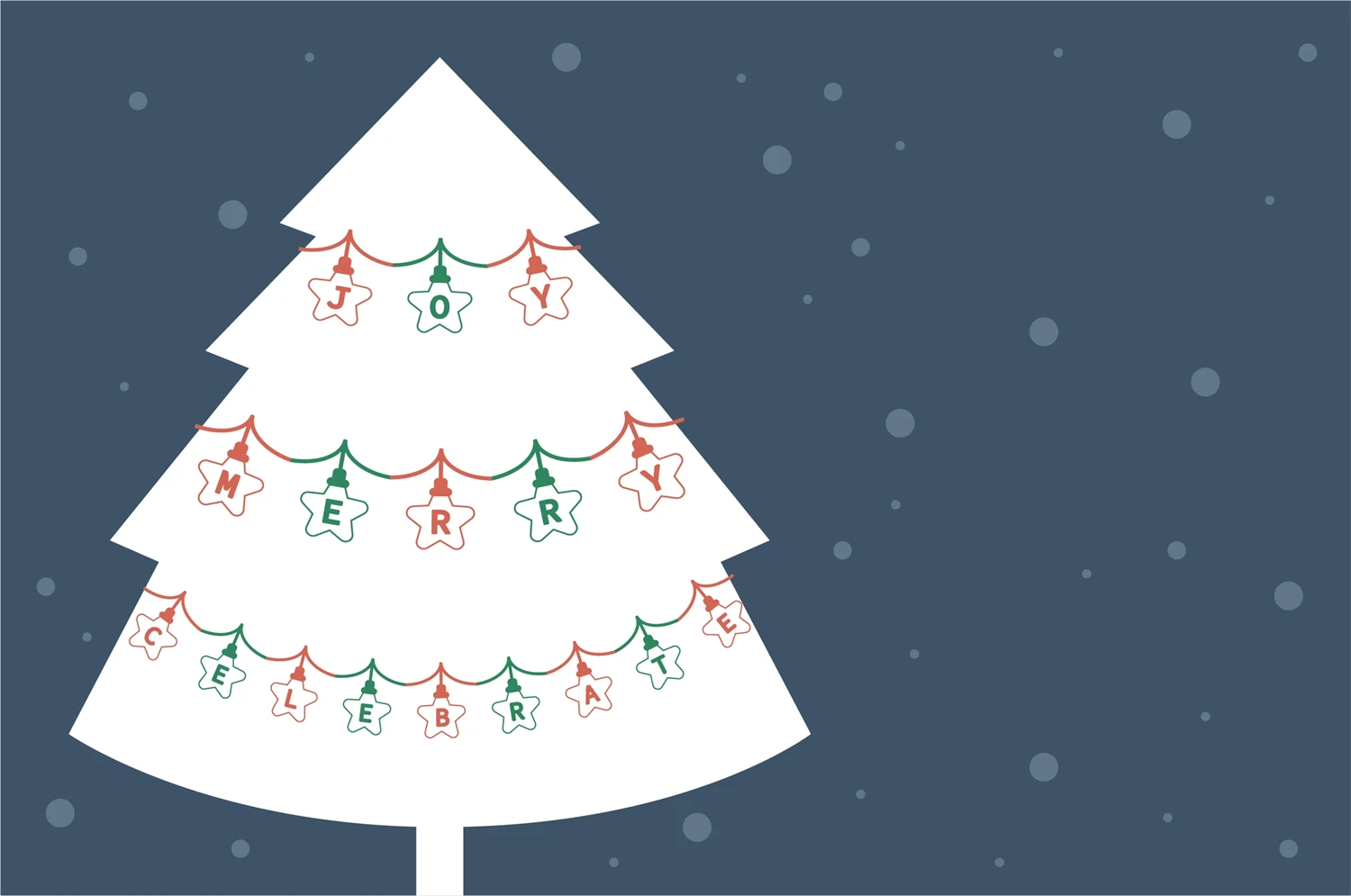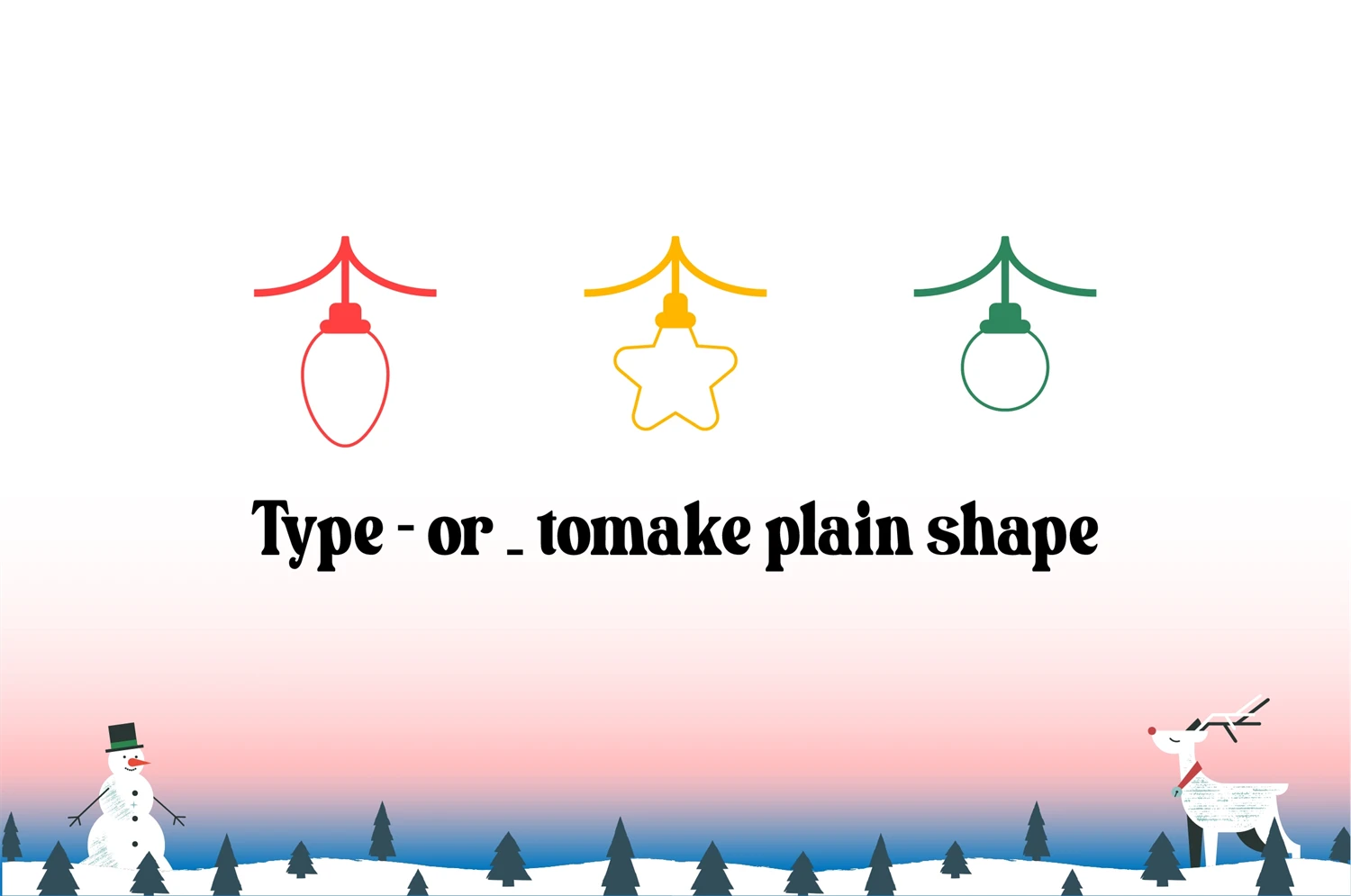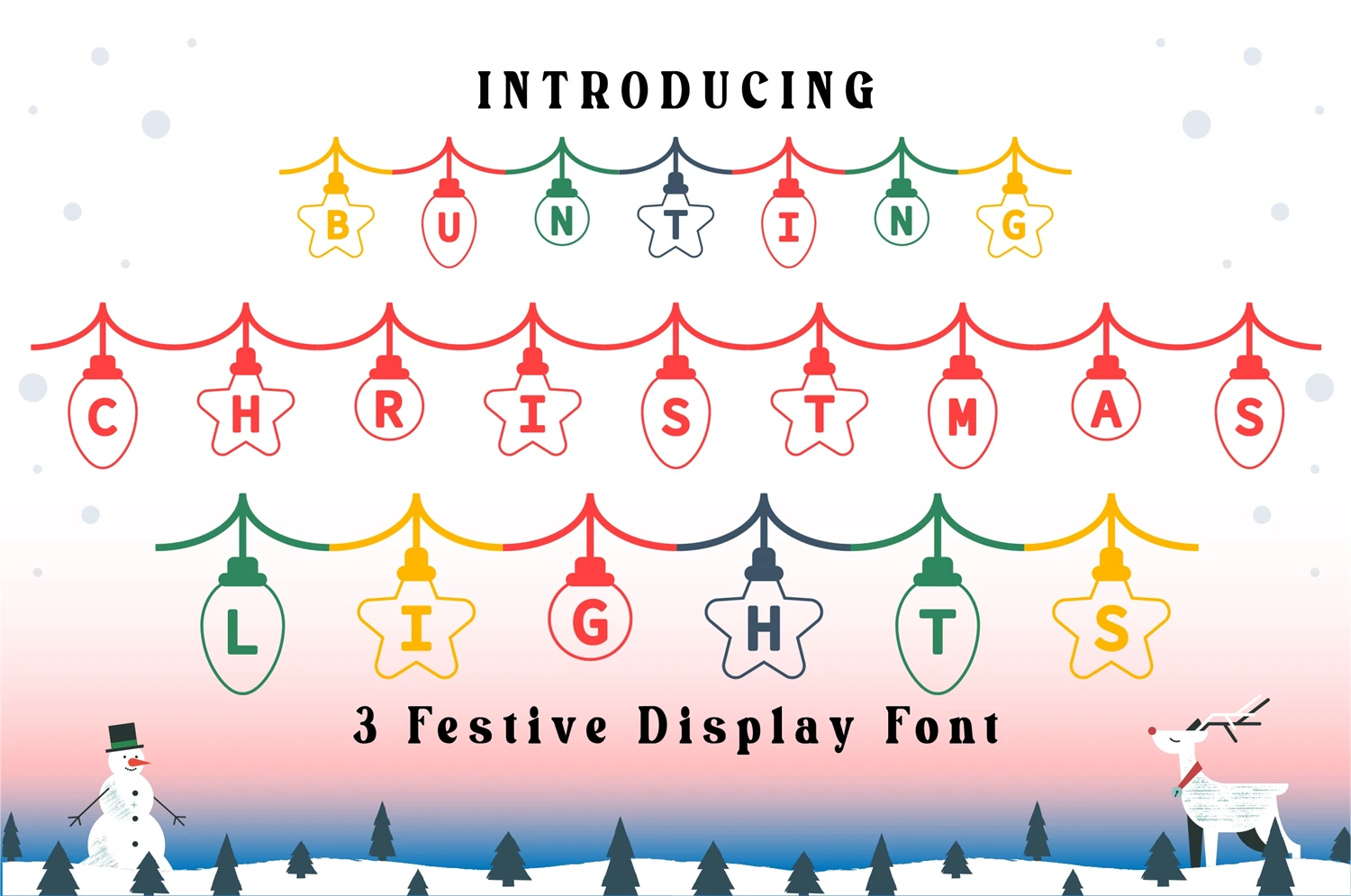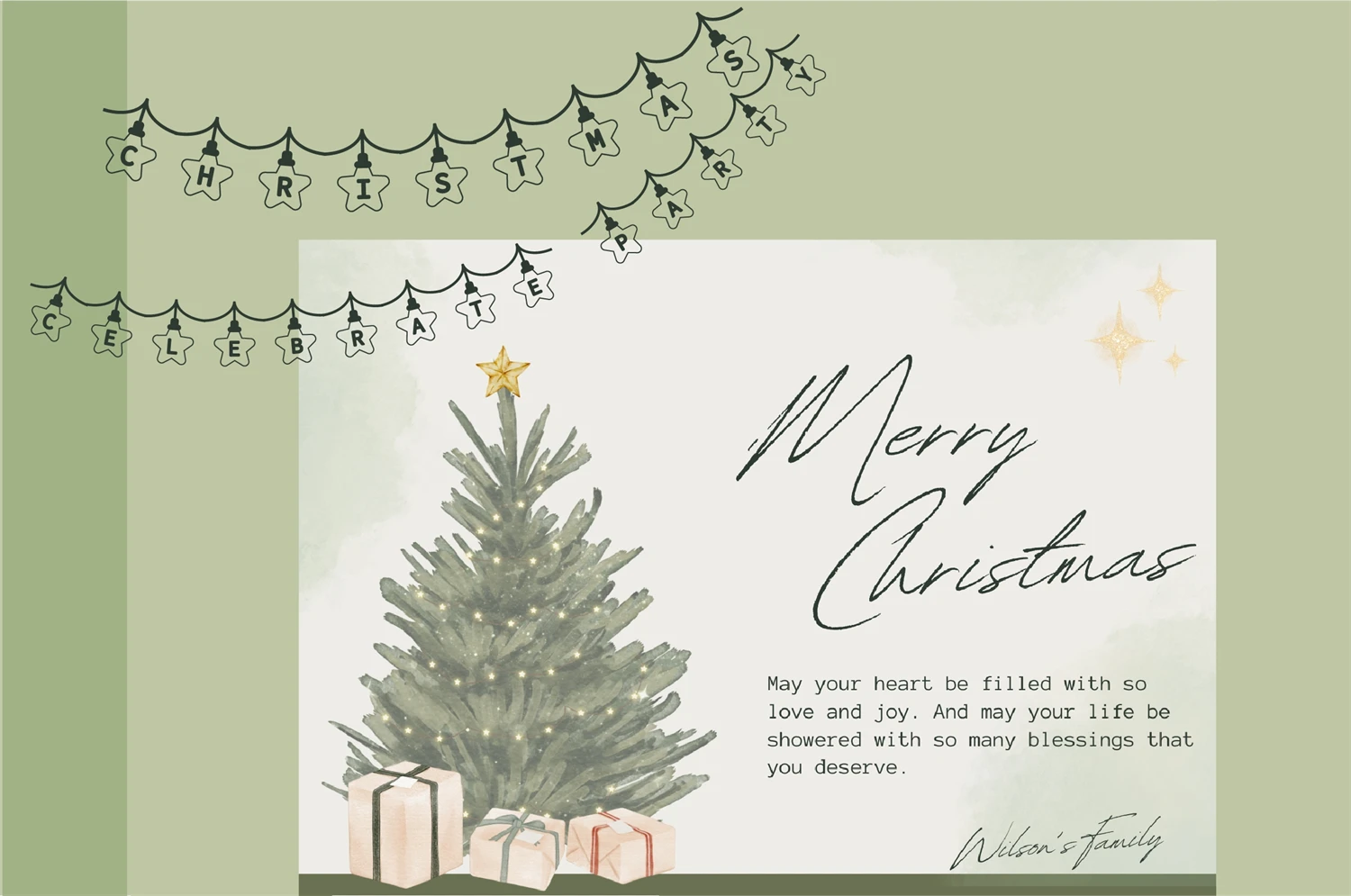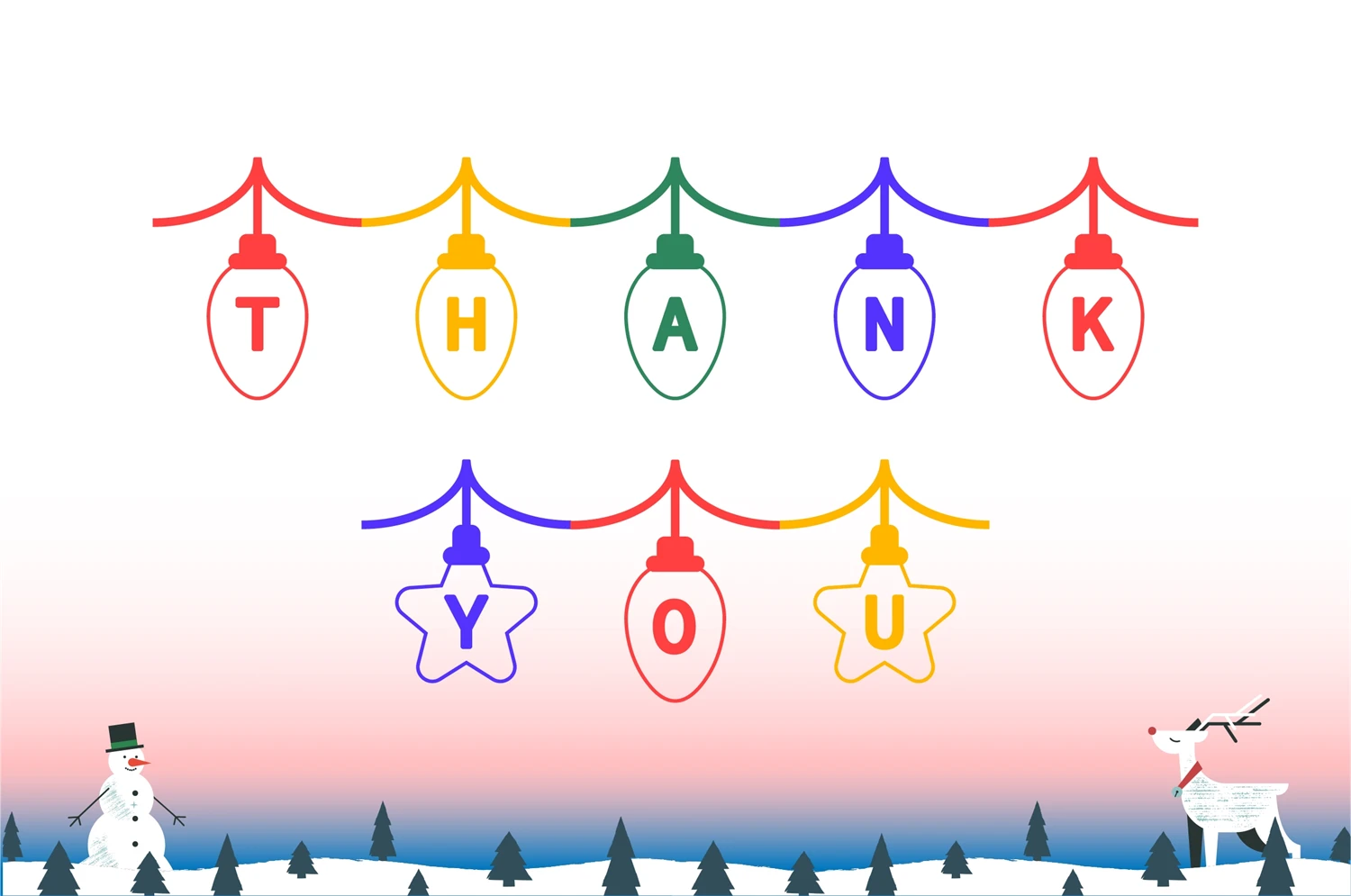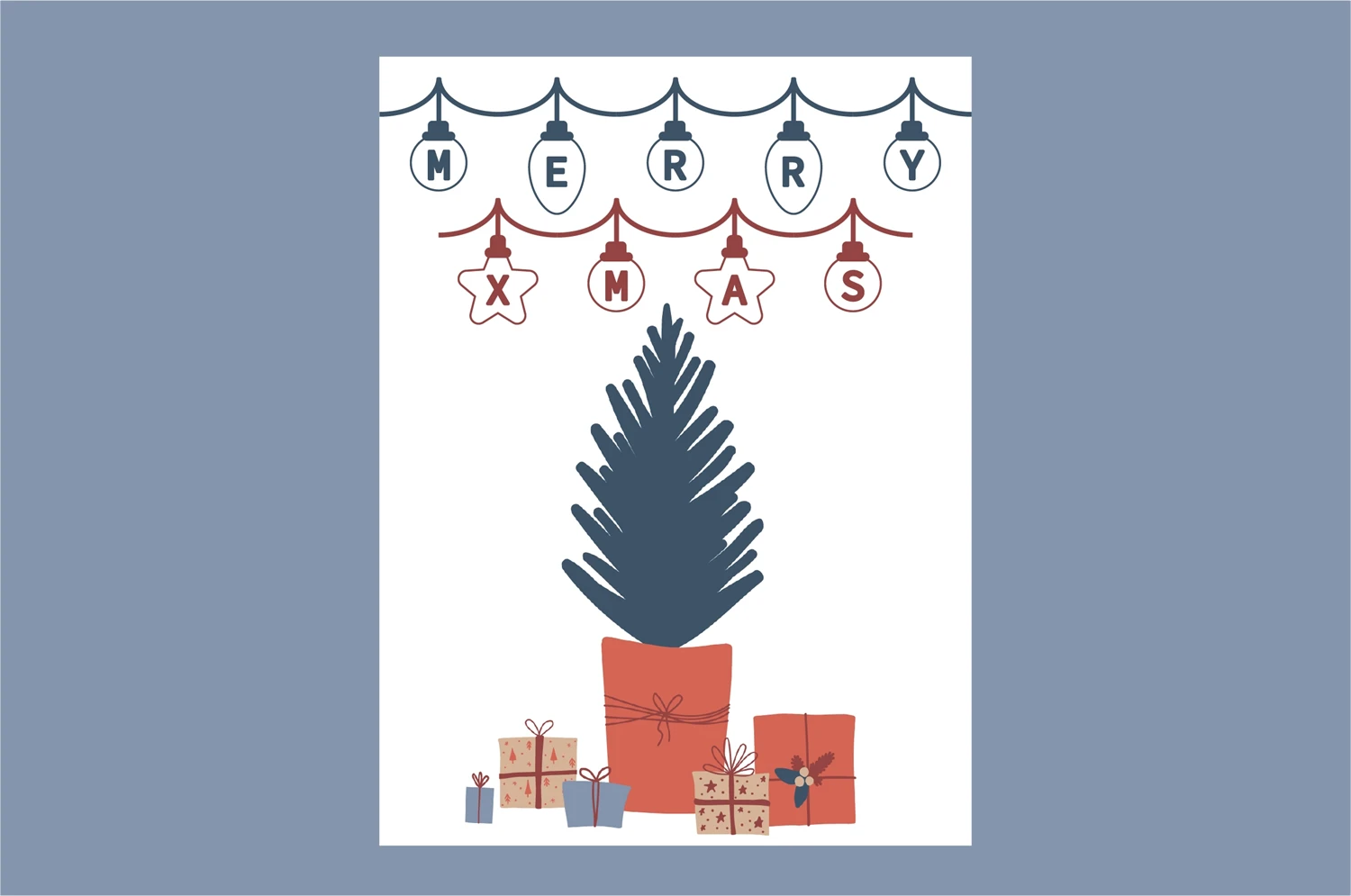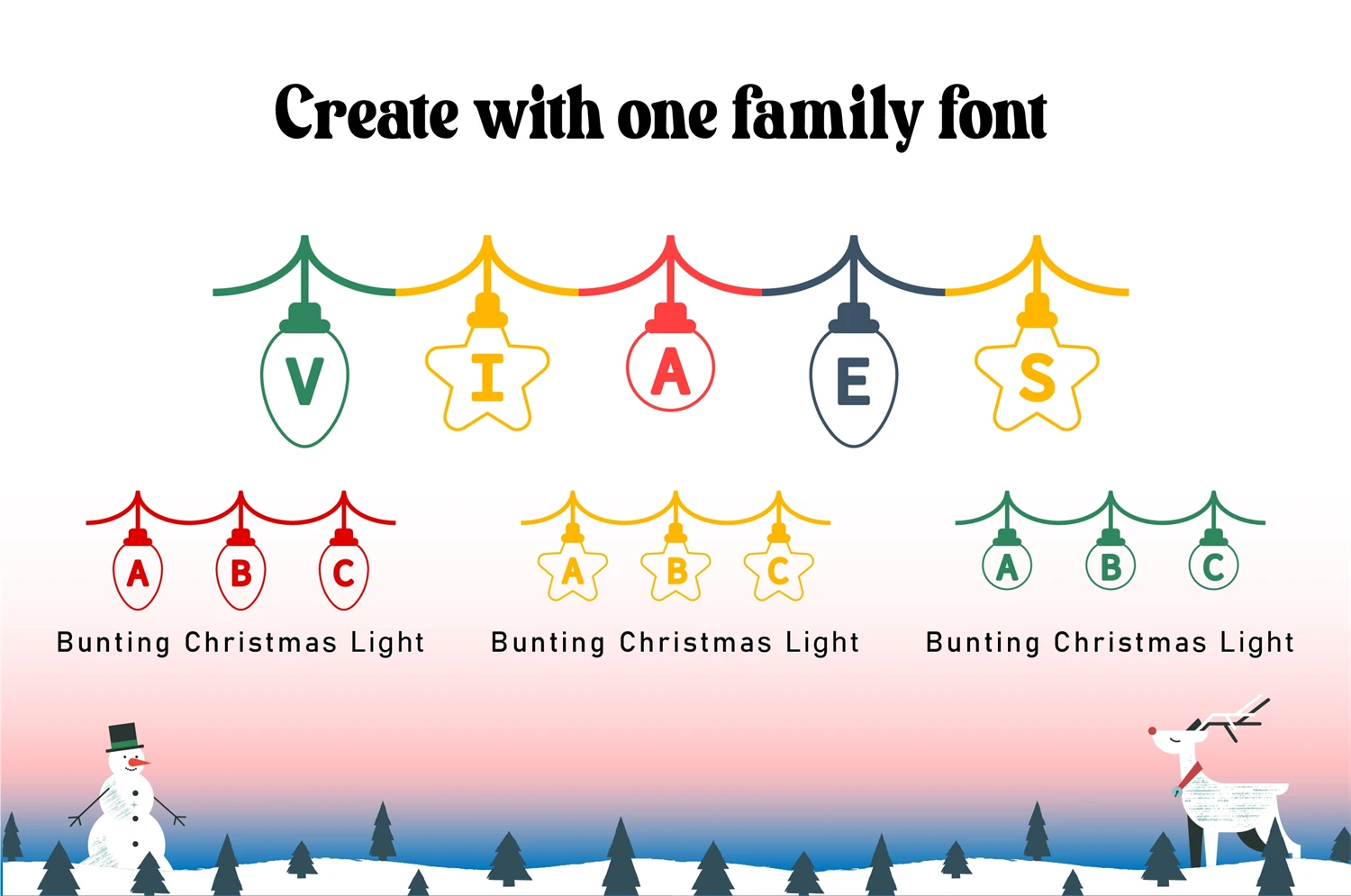
Bunting Christmas Light is family font. You can type a word and back to select stlye by character. Then you will get the unique christmas light bunting. It's perfect for create Christmas card, Birthday Card, shirt, decorate gift, etc. Coming with bonus PNG/JPG/SVG files. Have fun!